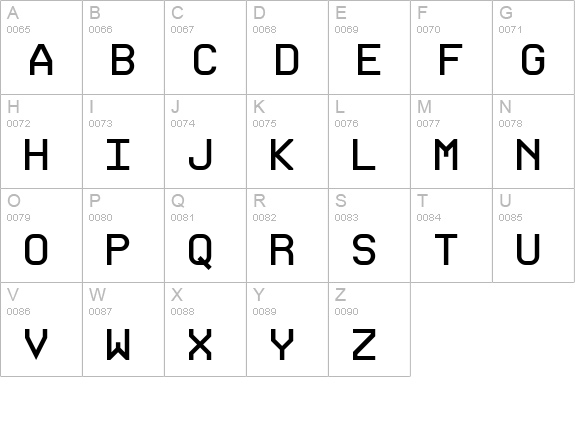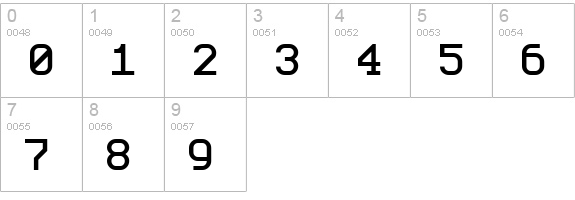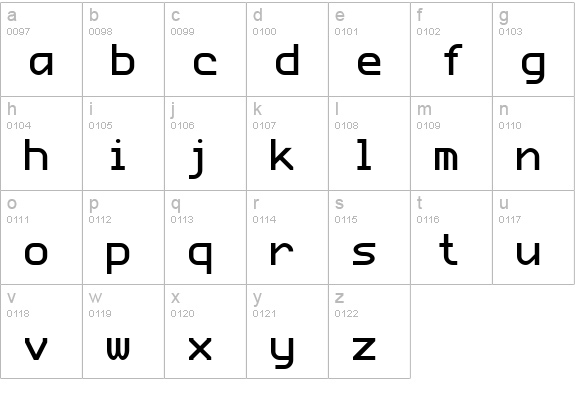
ProFontWindows Font Details
ProFontWindows is a sleek and modern font designed for digital displays and printed materials. With its clean lines and sharp edges, this font exudes professionalism and sophistication. Perfect for use in presentations, websites, and branding materials, ProFontWindows offers a contemporary look that will elevate any project. What sets ProFontWindows apart is not only its stylish design but also the fact that it is available for free download at FontsMarket.com. This means that you can easily access this high-quality font without any cost, making it a valuable asset for designers, students, and professionals alike. Don't miss out on the opportunity to enhance your work with ProFontWindows – download it today and see the difference it can make in your projects.